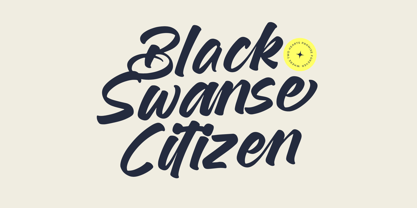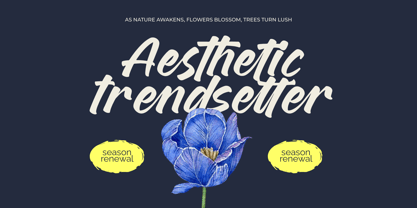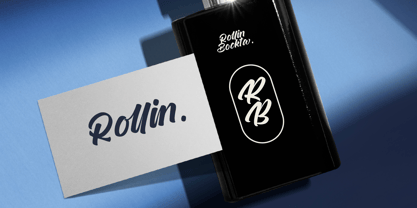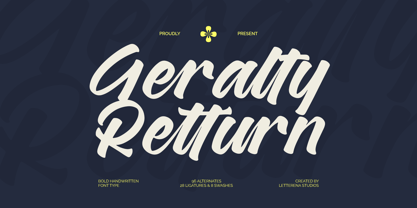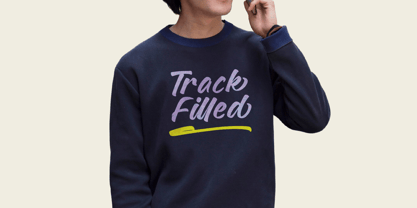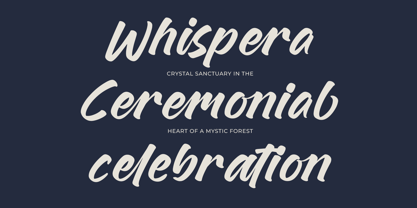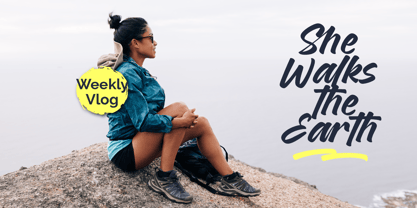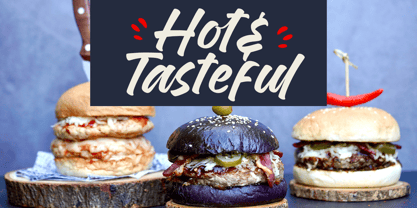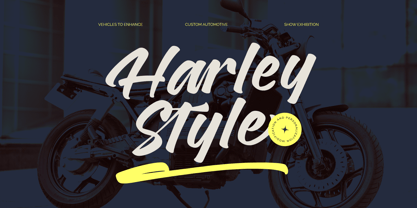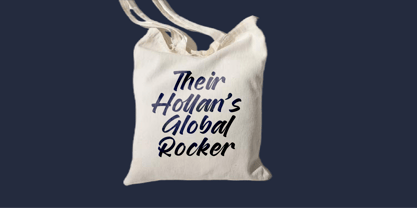
Geralty Retturn
by Letterena Studios
The Geralty Retturn Font Family was designed by Heru Utama Putra and published by Letterena Studios. Geralty Retturn contains 2 styles and family package options. More about this family
Geralty Retturn - Bold Handwritten Font Type , from Letterena, is a Luxury Script font, suitable for any projects such as: logos, branding projects, homeware designs, product packaging, mugs, quotes, posters, shopping bags, t-shirts, book covers, name card, invitation cards, greeting cards, label, photography, watermark, special events, and all your other luxury and beautiful projects that need a Luxury Script taste.